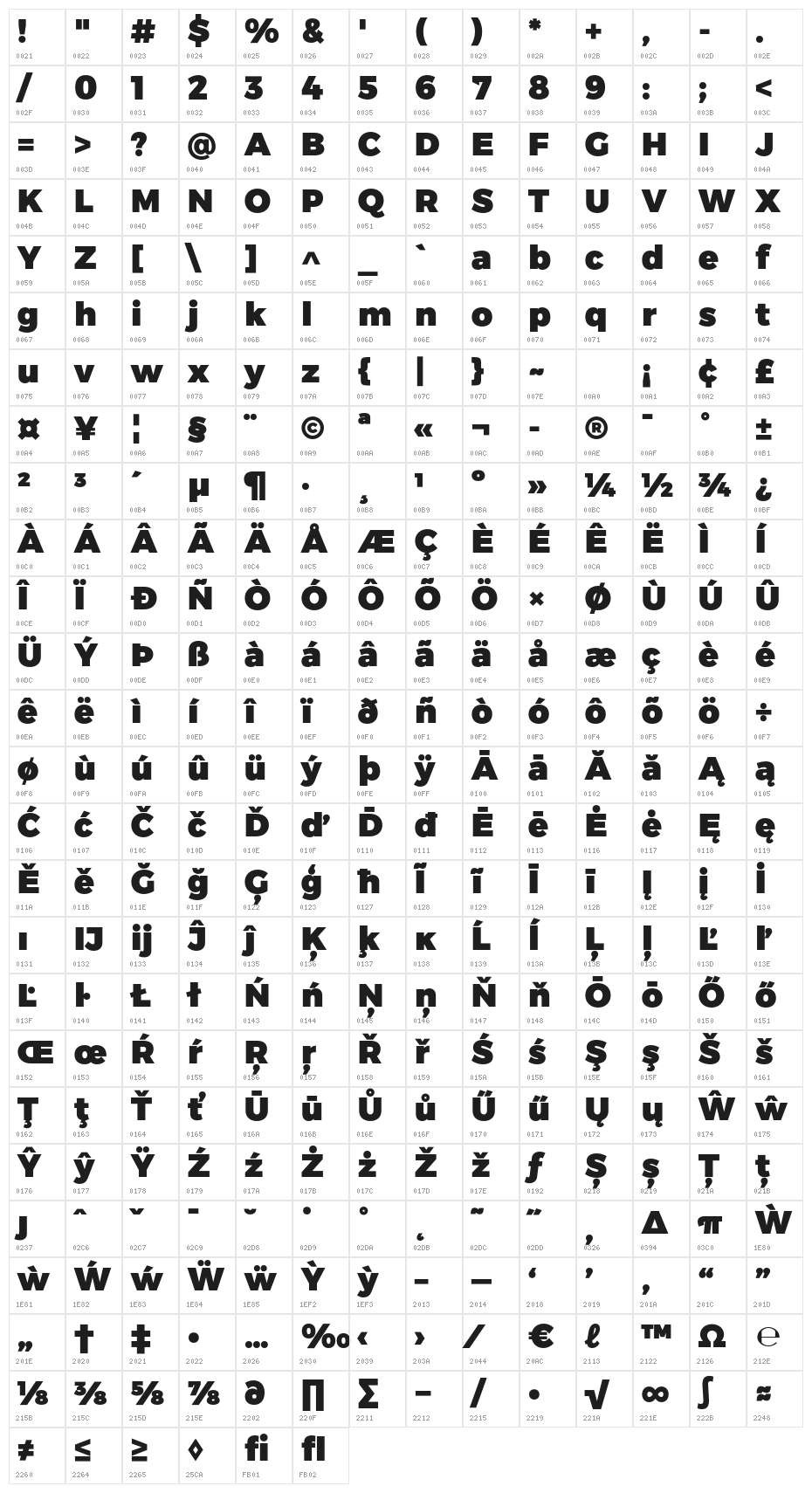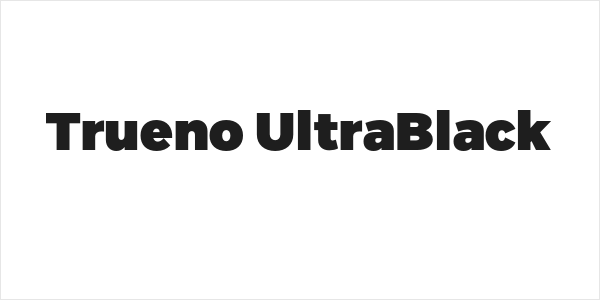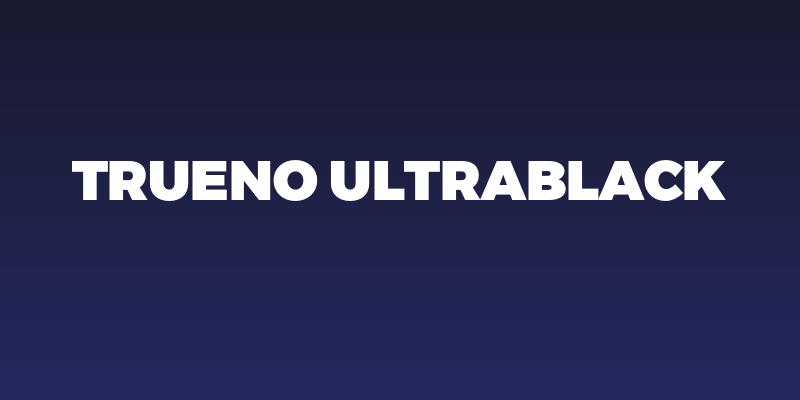
Trueno UltraBlack Font
Trueno UltraBlack Description
This font features a bold and commanding presence with its ultra-black weight, making it ideal for impactful headlines and statements. The characters are designed with a modern sans-serif style, offering a clean and straightforward appearance. The uppercase and lowercase letters maintain a consistent width, providing a balanced look across different text sizes. The numerals are equally bold, ensuring they stand out in any context. Special characters are included, maintaining the same robust style, making this font versatile for various design needs.